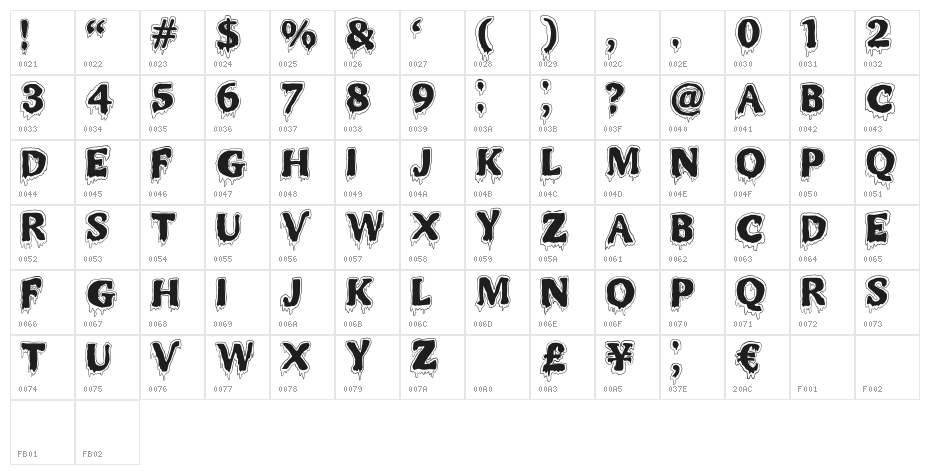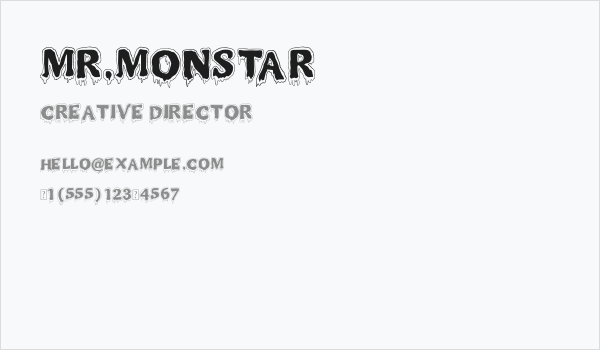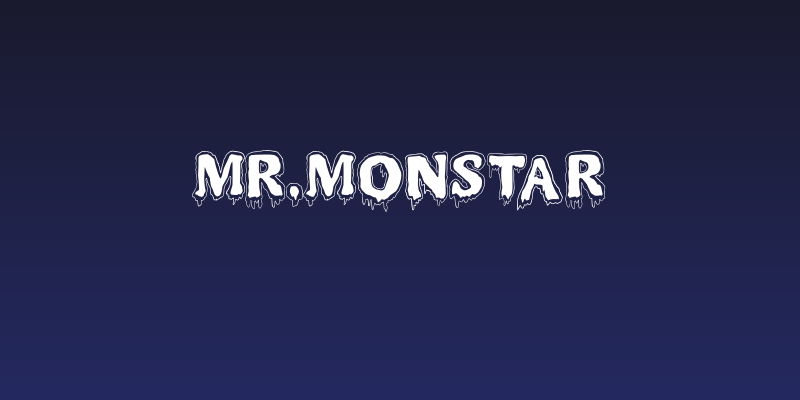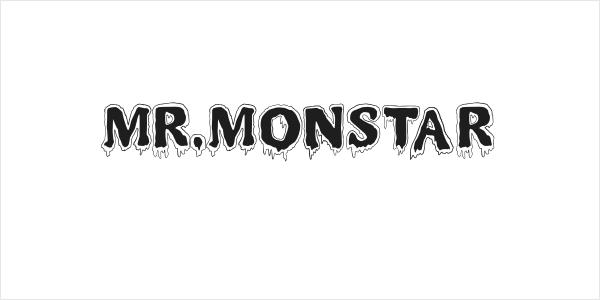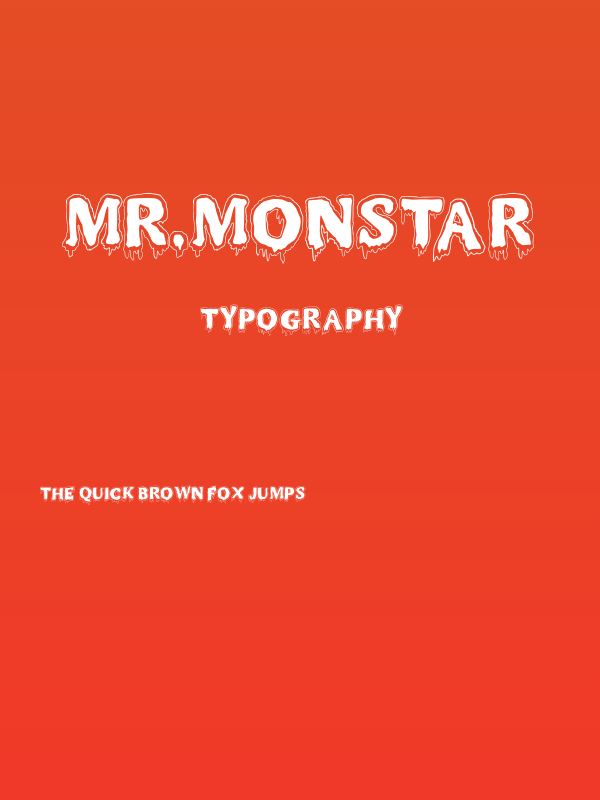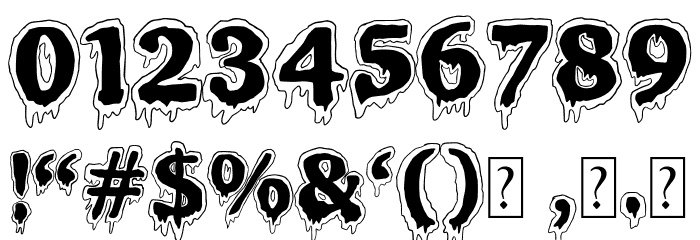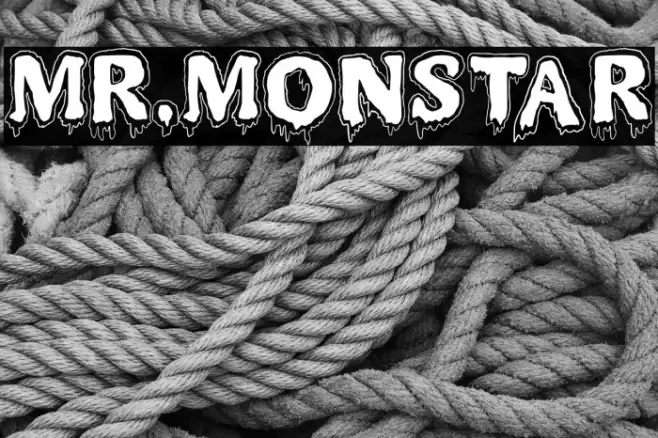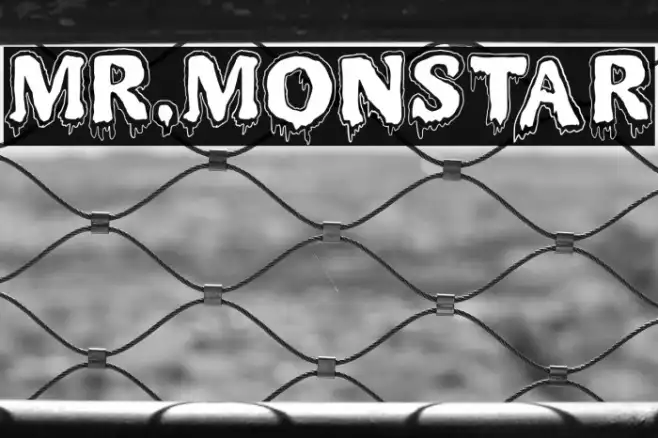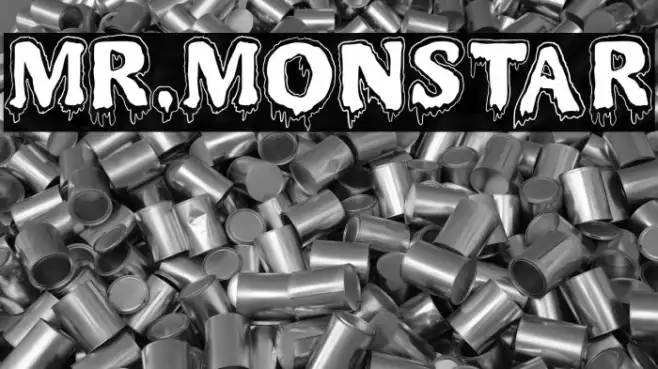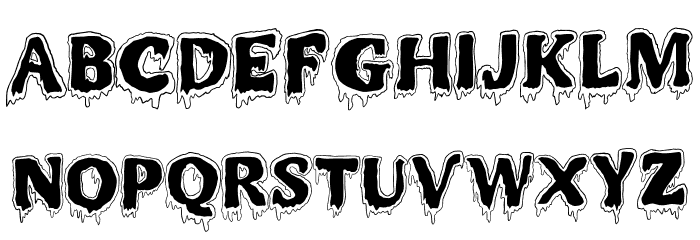
MR.MONSTAR Font
MR.MONSTAR Description
This font features a bold and playful design with a dripping effect that gives it a spooky, Halloween-inspired appearance. The characters are outlined with a thick black border, enhancing their visibility and adding to the dramatic effect. Each letter and number appears to be melting, creating a dynamic and eye-catching look. This style is perfect for themes that require a touch of horror or fun, such as Halloween events, haunted house posters, or themed party invitations. The font maintains a consistent weight and width throughout, ensuring readability while still delivering a unique aesthetic.
| Proposed Projects | Ideal for Halloween posters, themed party invitations, horror movie titles, and haunted house signage. |